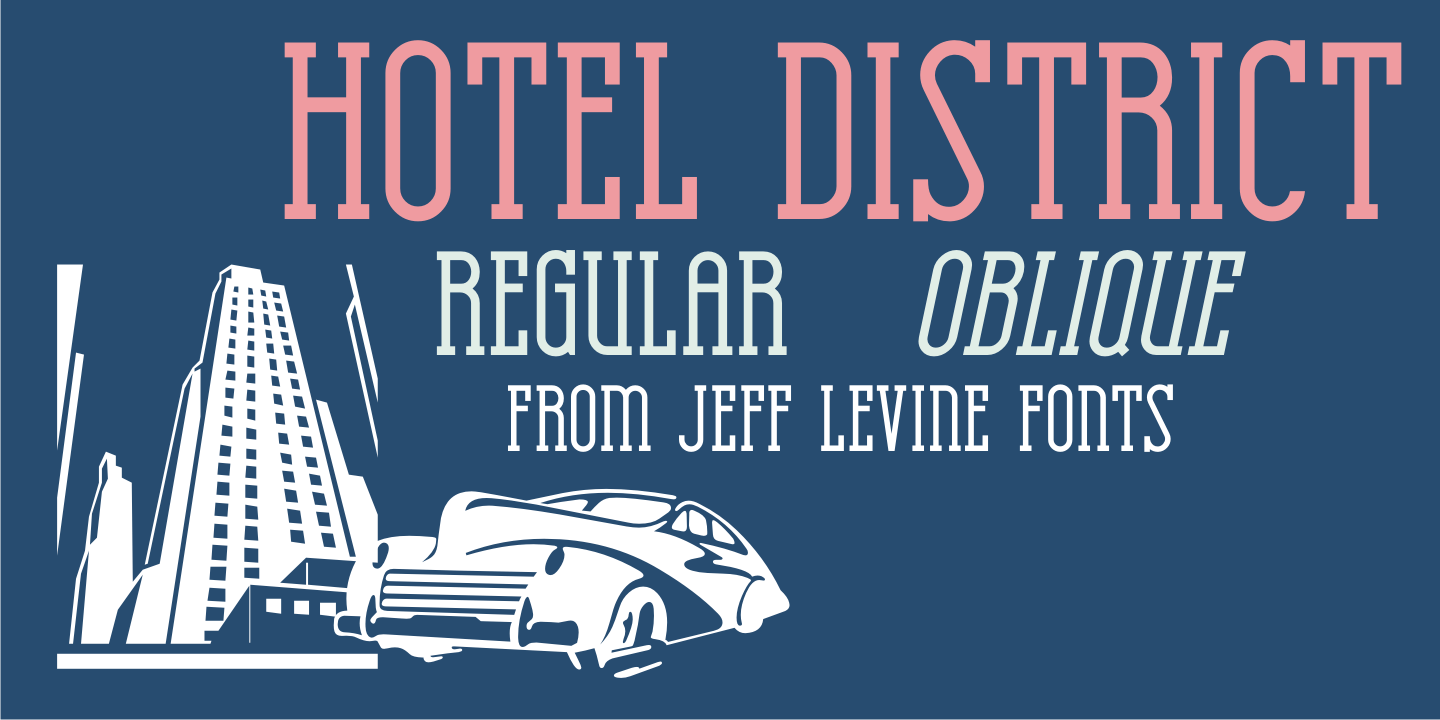
Hotel District
The sans serif type style for the specialty font Nameplate JNL was given a serif treatment and is now Hotel District JNL complete with a full character set.
Originally inspired by two Art Deco-era metal door signs saying 'Men” and 'Ladies”, the thin sans lends itself well to period pieces as well as contemporary design work.